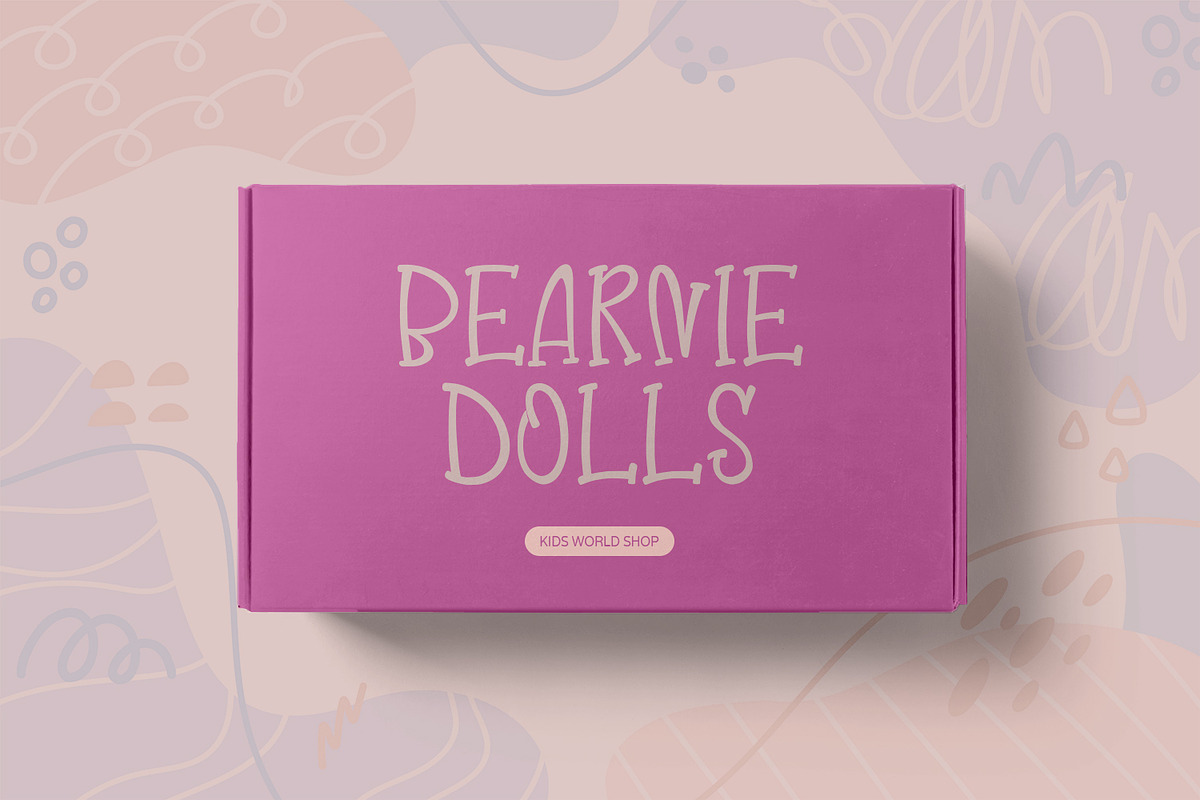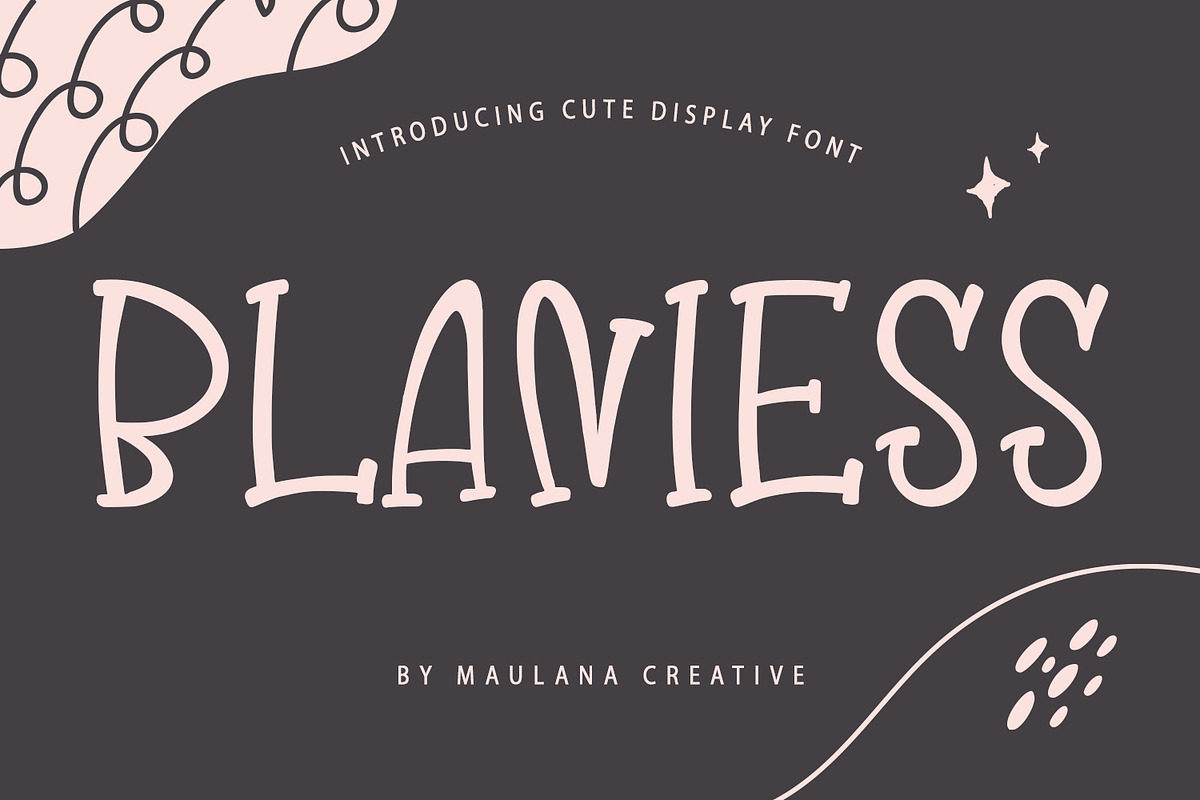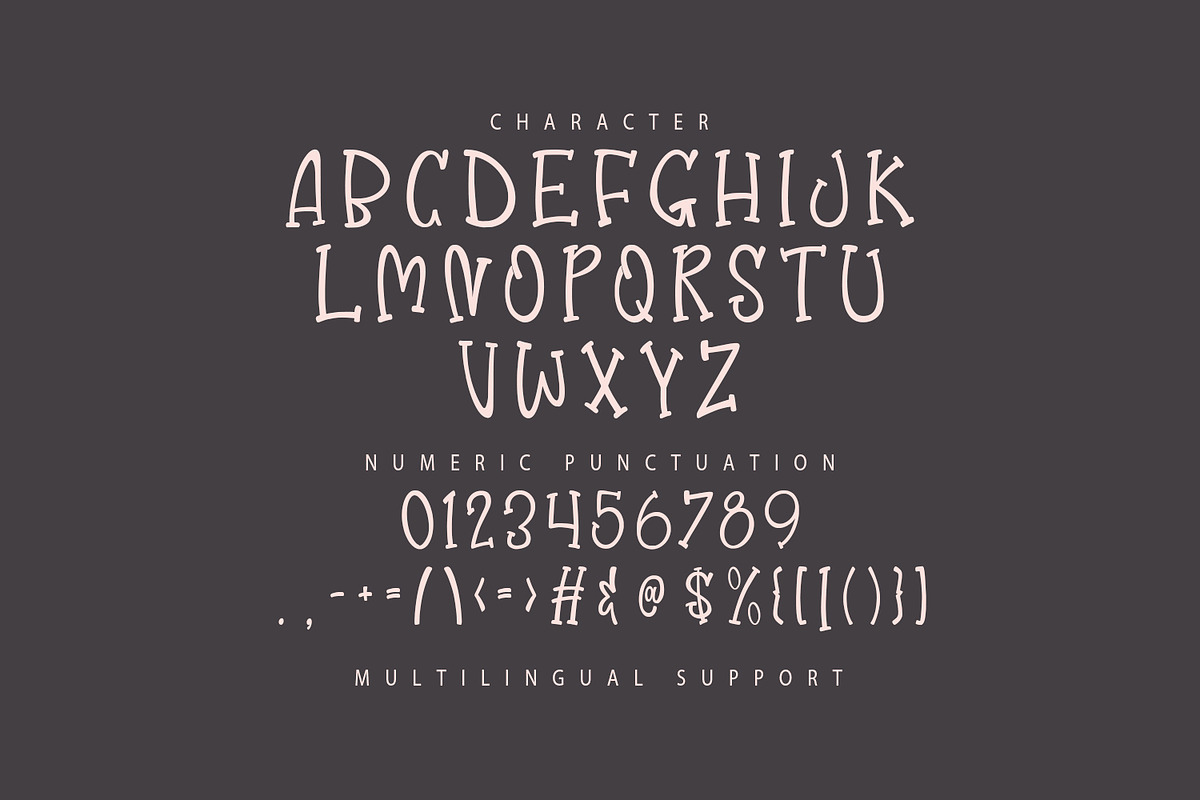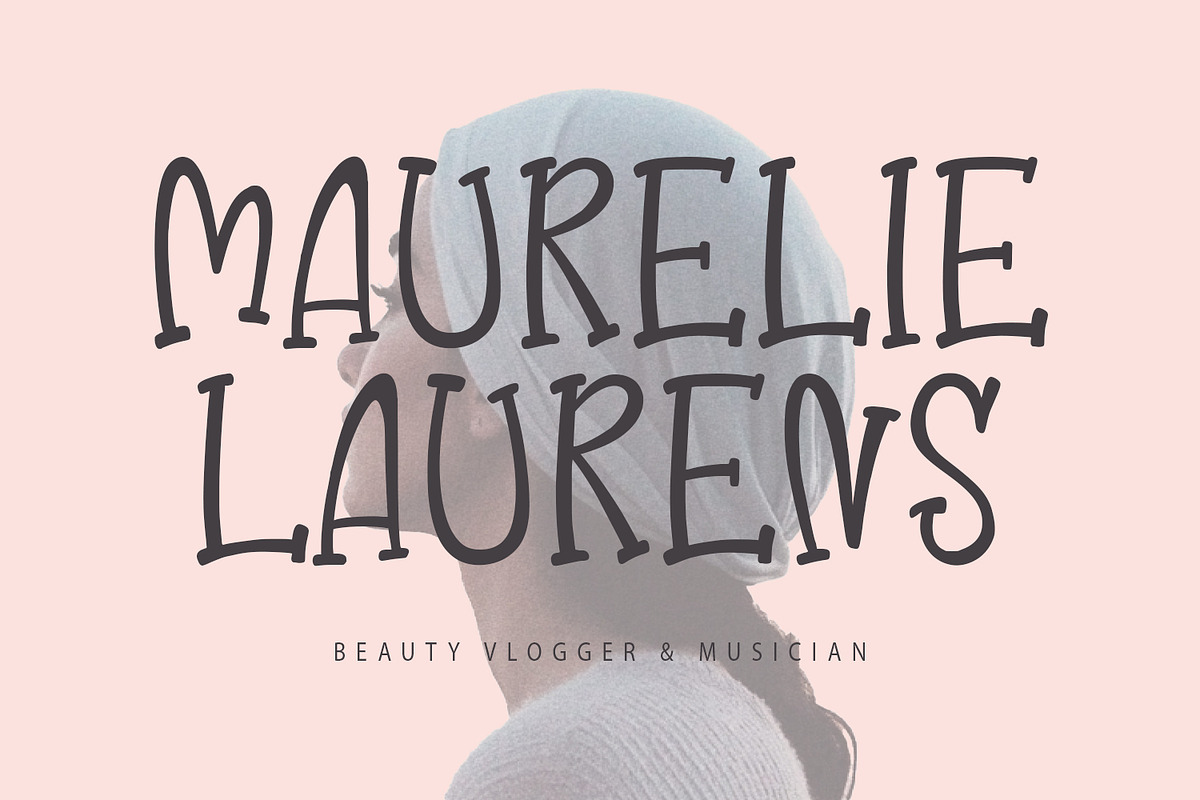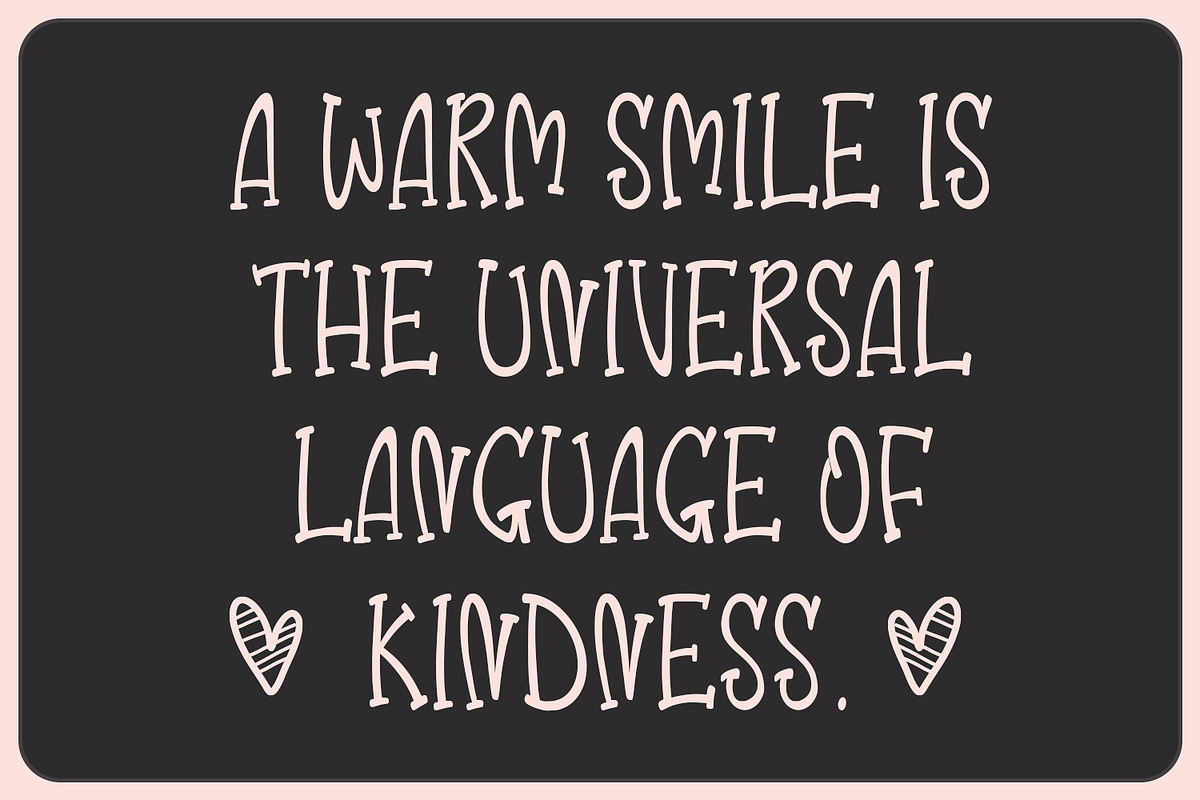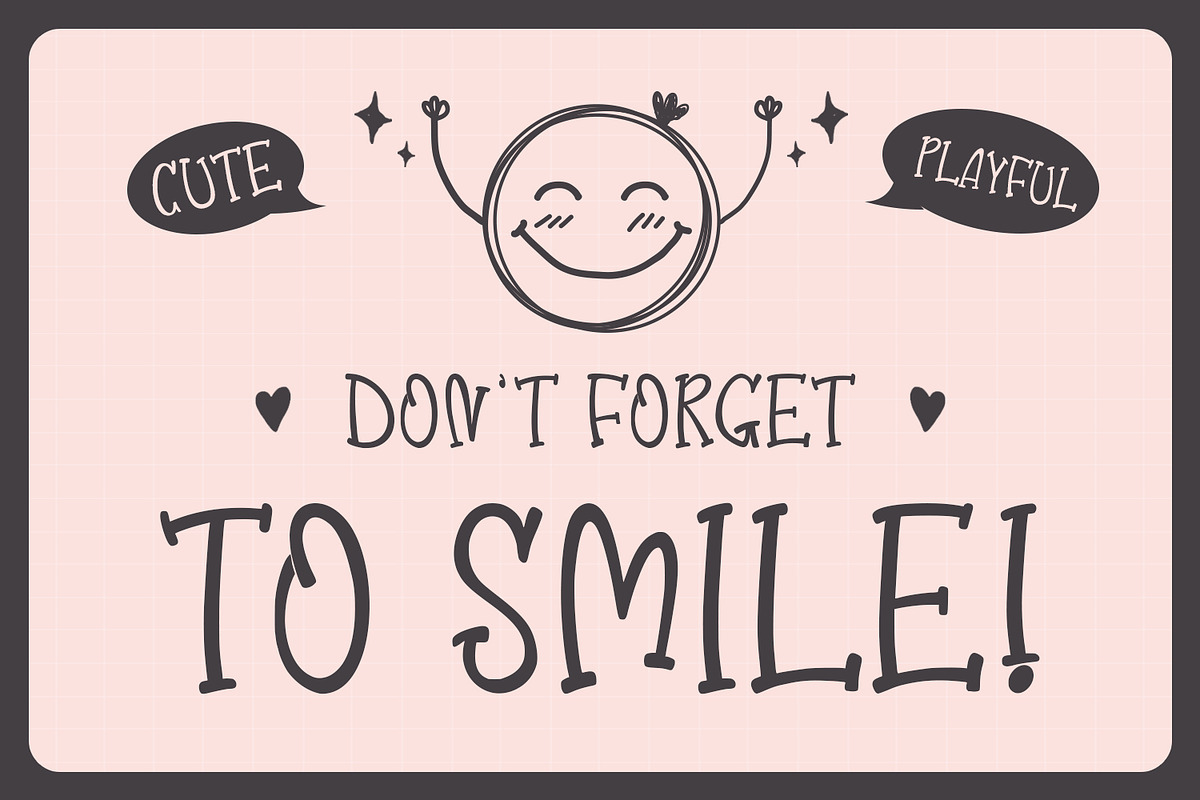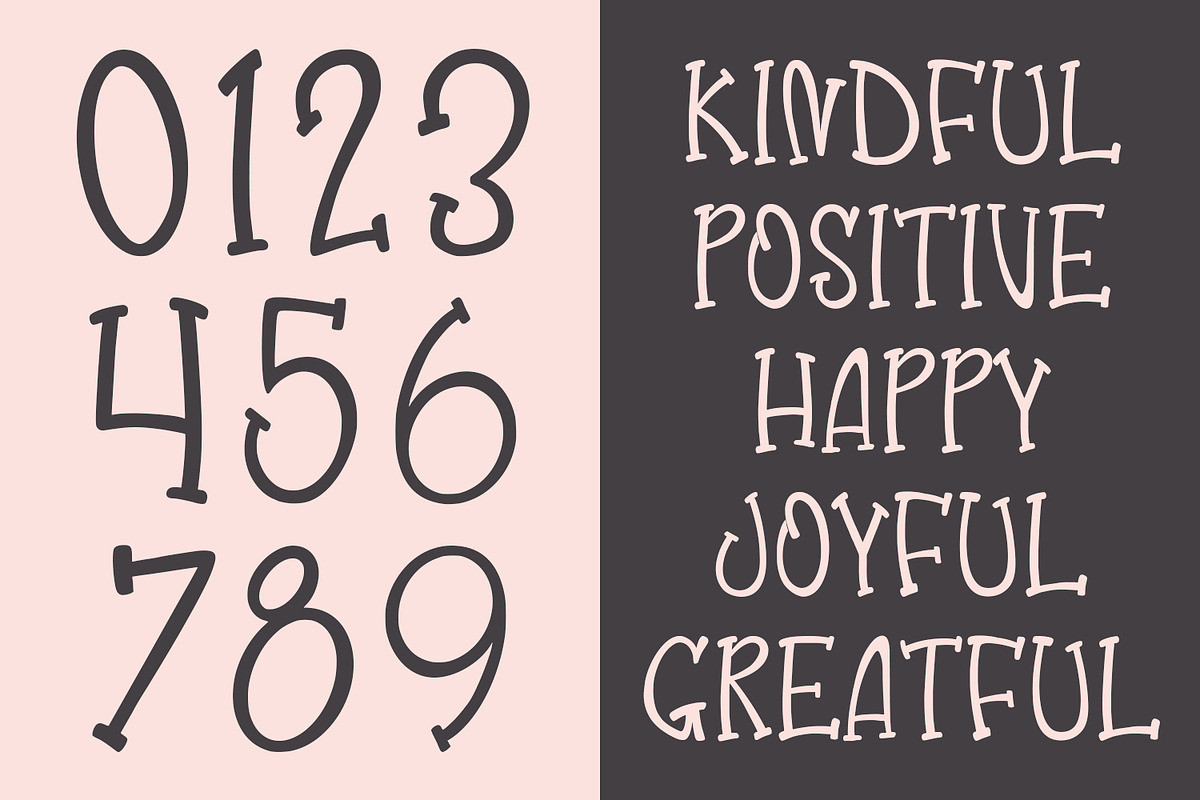
Blaniess Cute Display Font
Blaniess is a cute modern display font. Cute and fun character to give you an extra creative work. Blaniess font support multilingual more than 100+ language. This font is good for logo design, Social media, Movie Titles, Books Titles, a short text even a long text letter and good for your secondary text font with script or serif. Make a stunning work with Blaniess font.